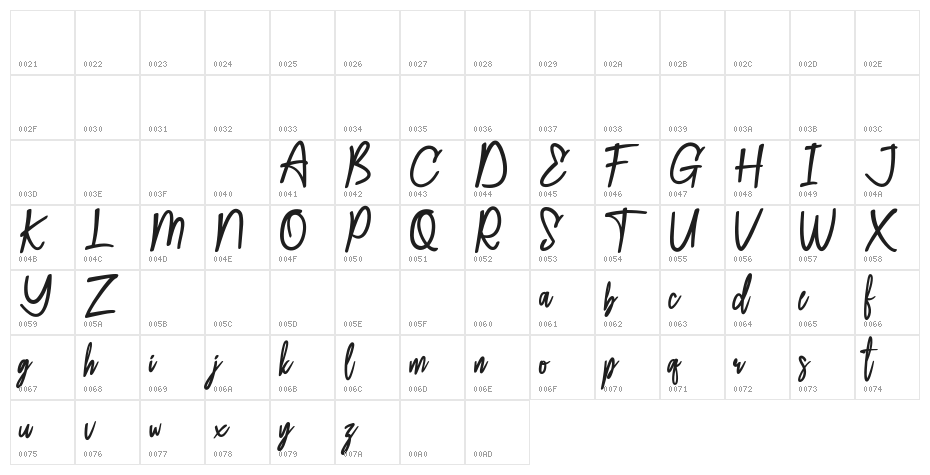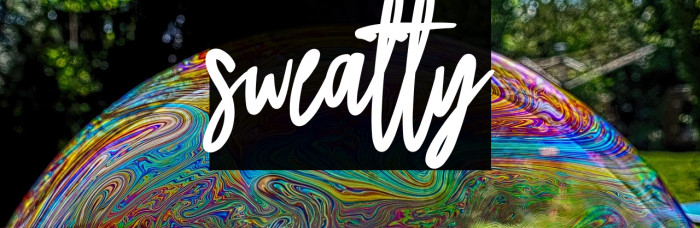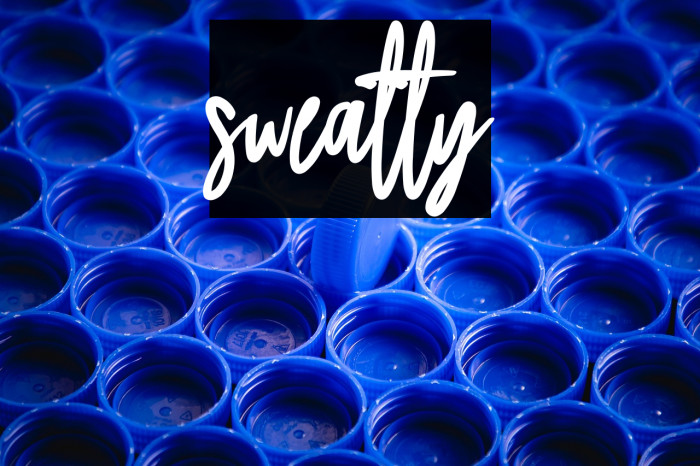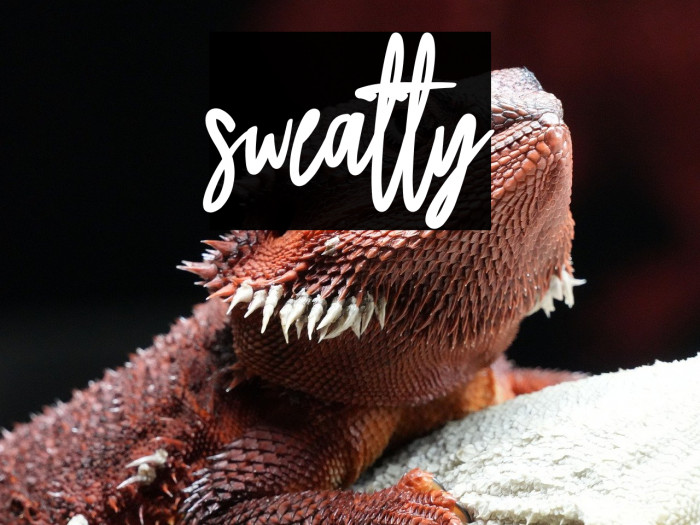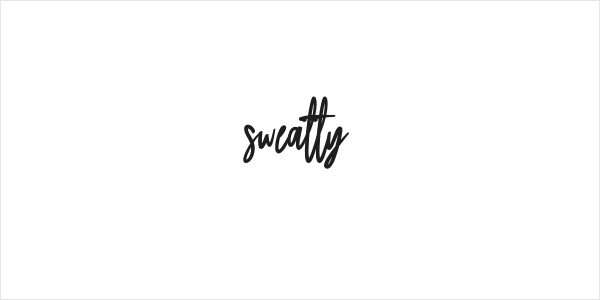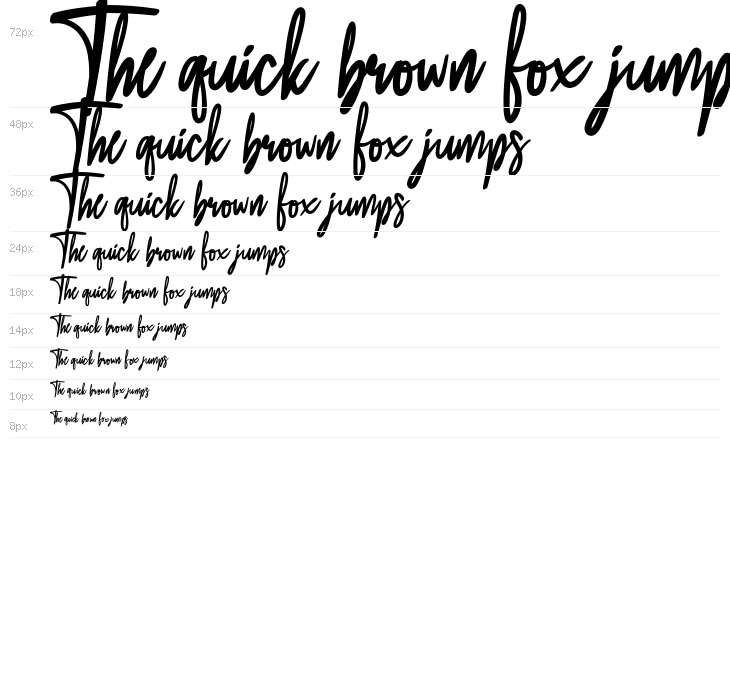
sweatty Font
sweatty Description
This font features a dynamic and expressive handwritten style, characterized by its fluid and cursive letterforms. The uppercase letters are bold and slightly slanted, giving a sense of movement and energy. The lowercase letters maintain a consistent flow, with some characters extending below the baseline, adding to the casual and informal appearance. The strokes vary in thickness, providing a medium contrast that enhances readability while maintaining a playful aesthetic. This font is well-suited for projects that require a personal touch or a creative flair.
| Proposed Projects | Ideal for greeting cards, invitations, personal branding, and creative projects. |